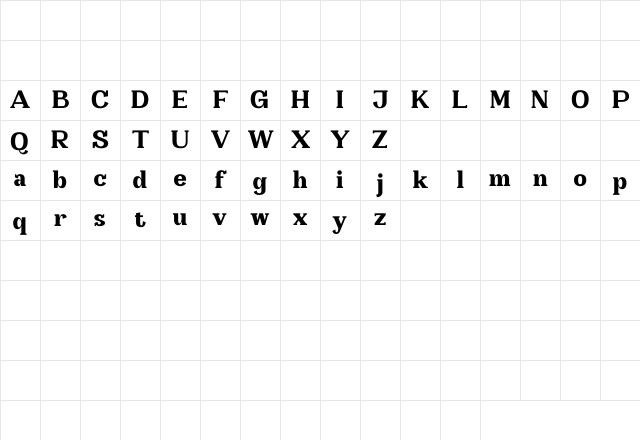
Cocha Regular
Designer: Dicky Safaat Fuadi
Design Context for Cocha
Cocha is a composed and adaptable typeface that performs quietly and consistently across a wide range of design contexts.